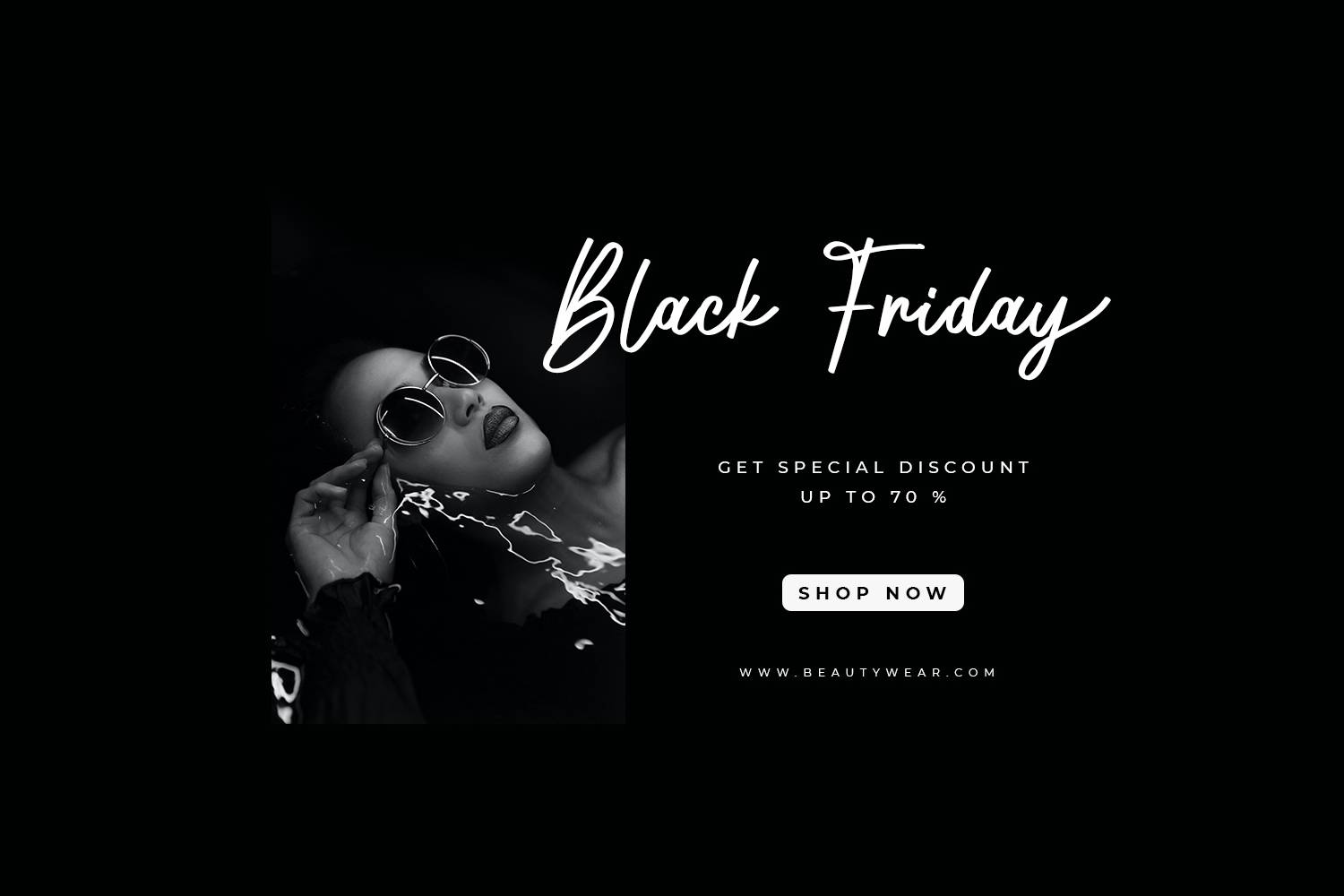
Elissa Signature Font is an elegant, flowing script that mimics natural handwriting with a modern and personal touch. Its slender, smooth strokes and slightly condensed letterforms give it a delicate yet readable appearance, perfect for adding sophistication and warmth to branding, invitations, and stylish editorial designs. This font works especially well where a charming, intimate feel is needed to convey creativity and elegance.
Elissa Signature Font
About Elissa Signature Font